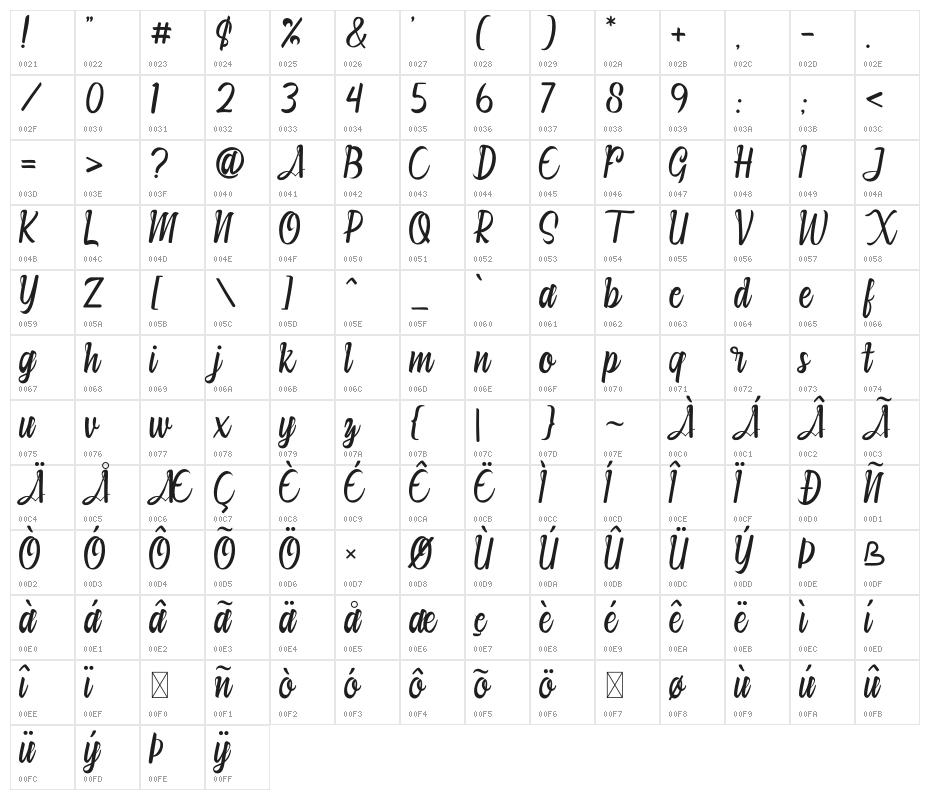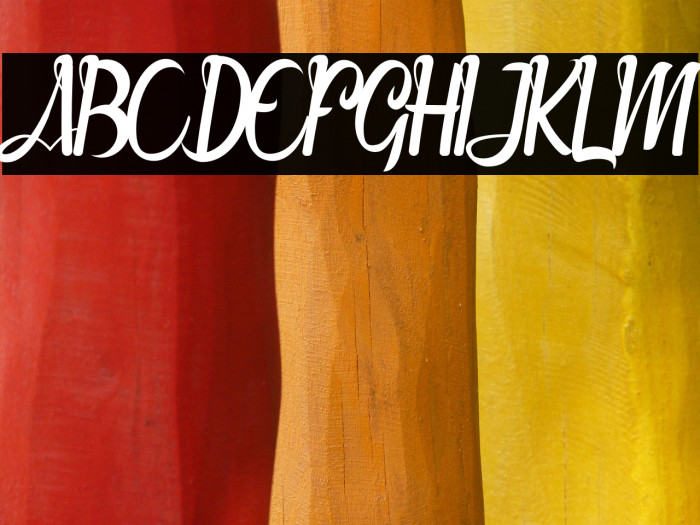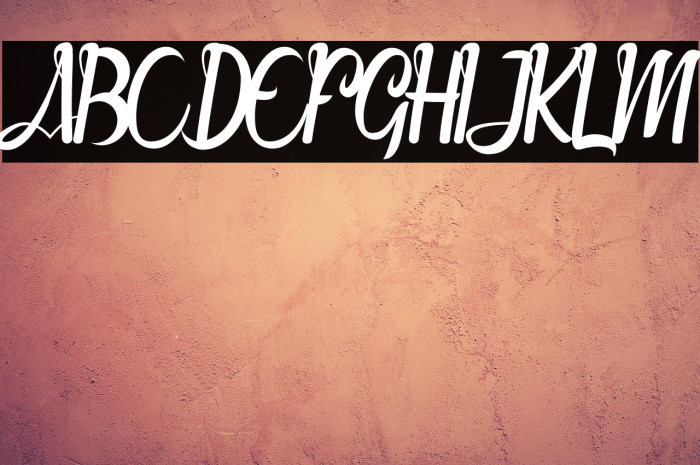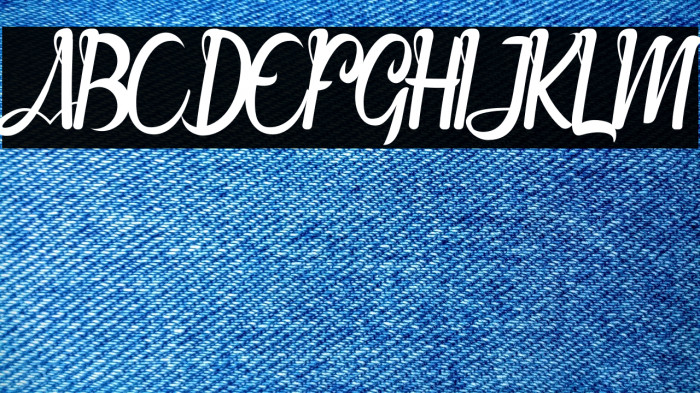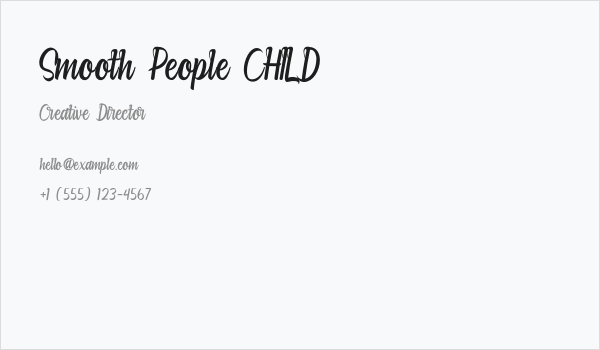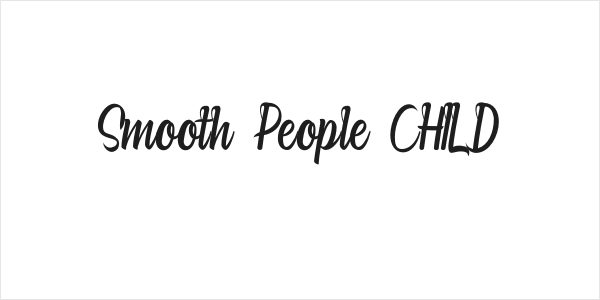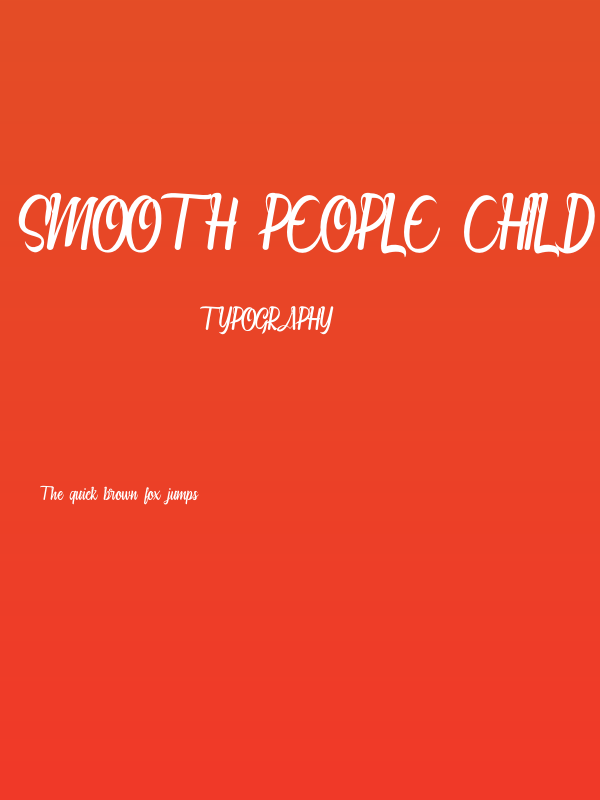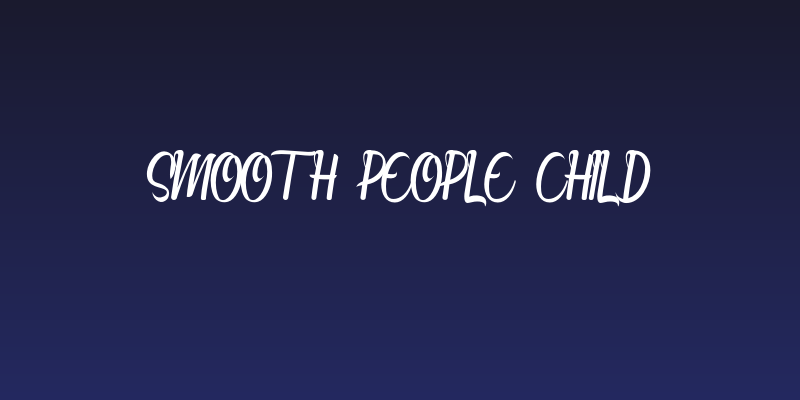
Smooth People CHILD Font
Smooth People CHILD Description
This font features a playful and energetic script style with a handwritten appearance. The letters are connected, giving it a fluid and continuous look. The uppercase characters are bold and dynamic, while the lowercase letters maintain a consistent flow. Numbers and special characters are integrated seamlessly, maintaining the overall aesthetic. The strokes are smooth and rounded, contributing to a friendly and approachable feel. This font is ideal for projects that require a personal touch or a casual, informal vibe.
| Proposed Projects | Great for greeting cards, invitations, logos, and social media graphics. |